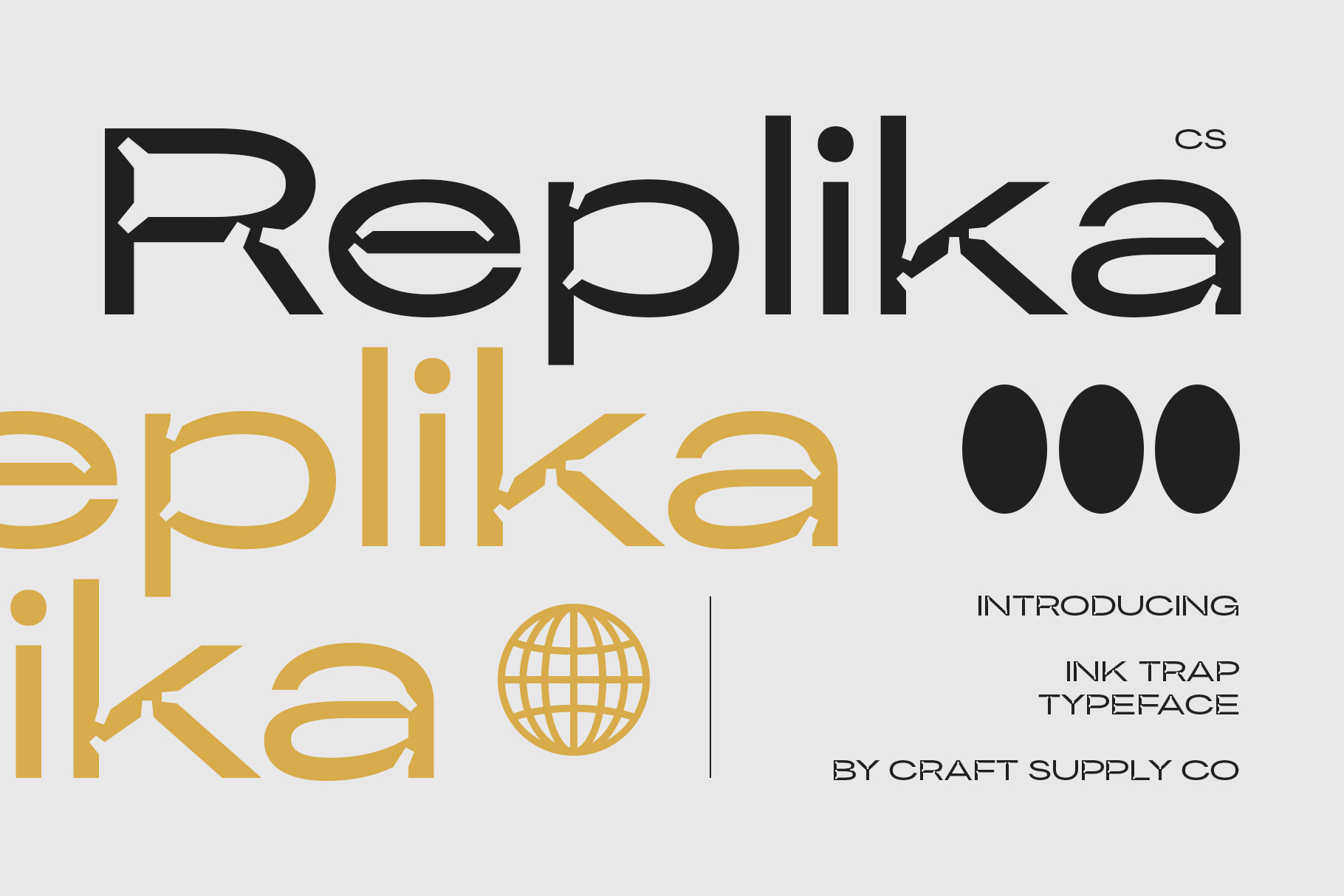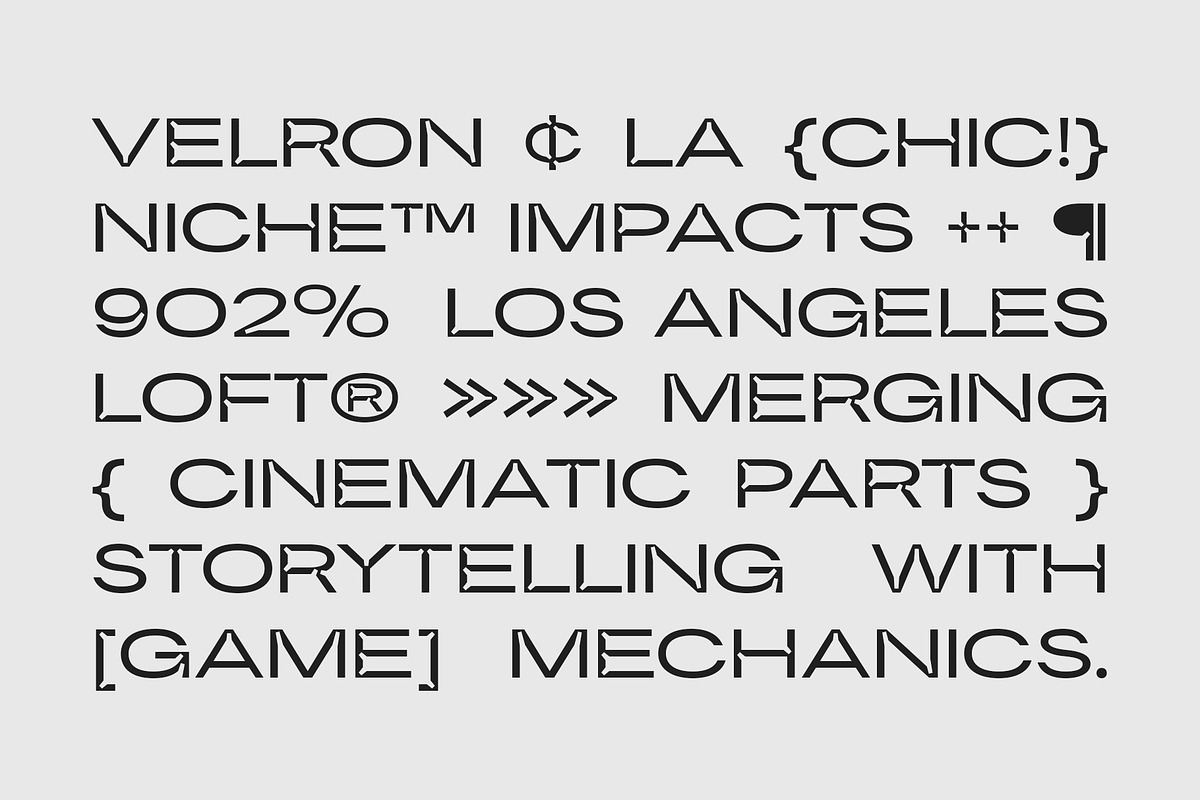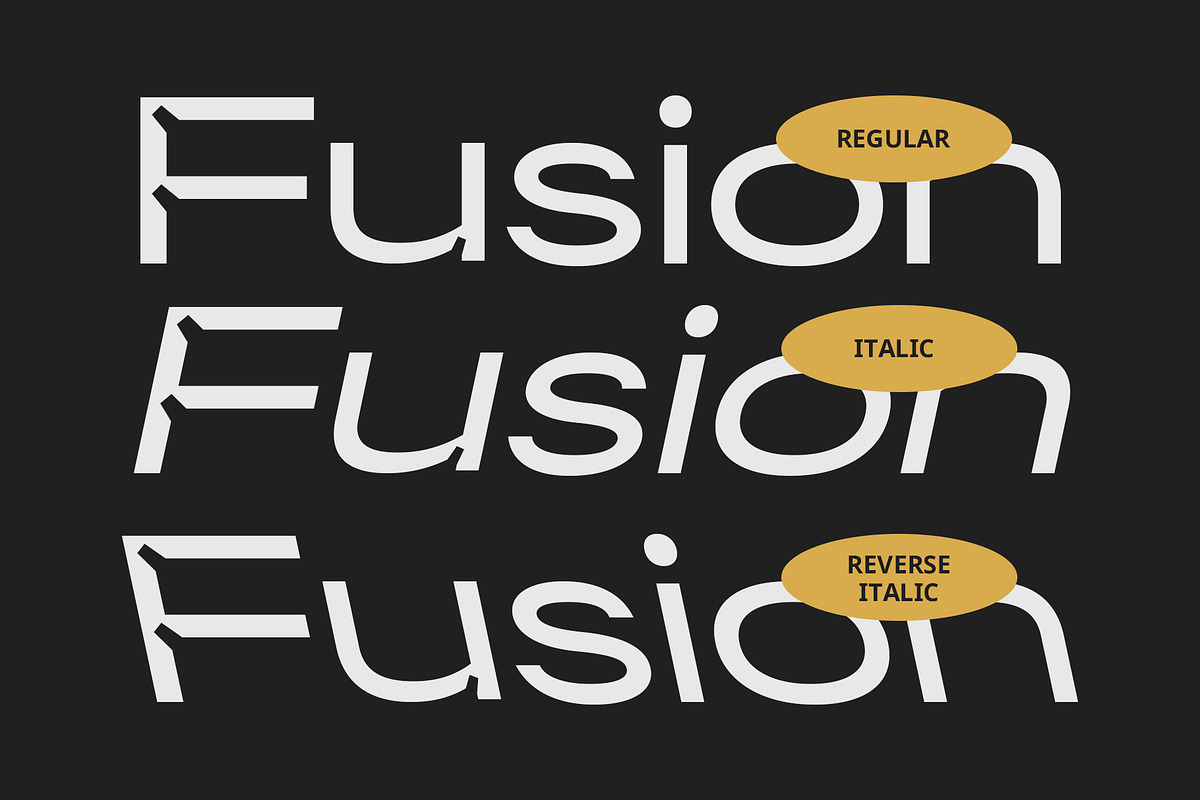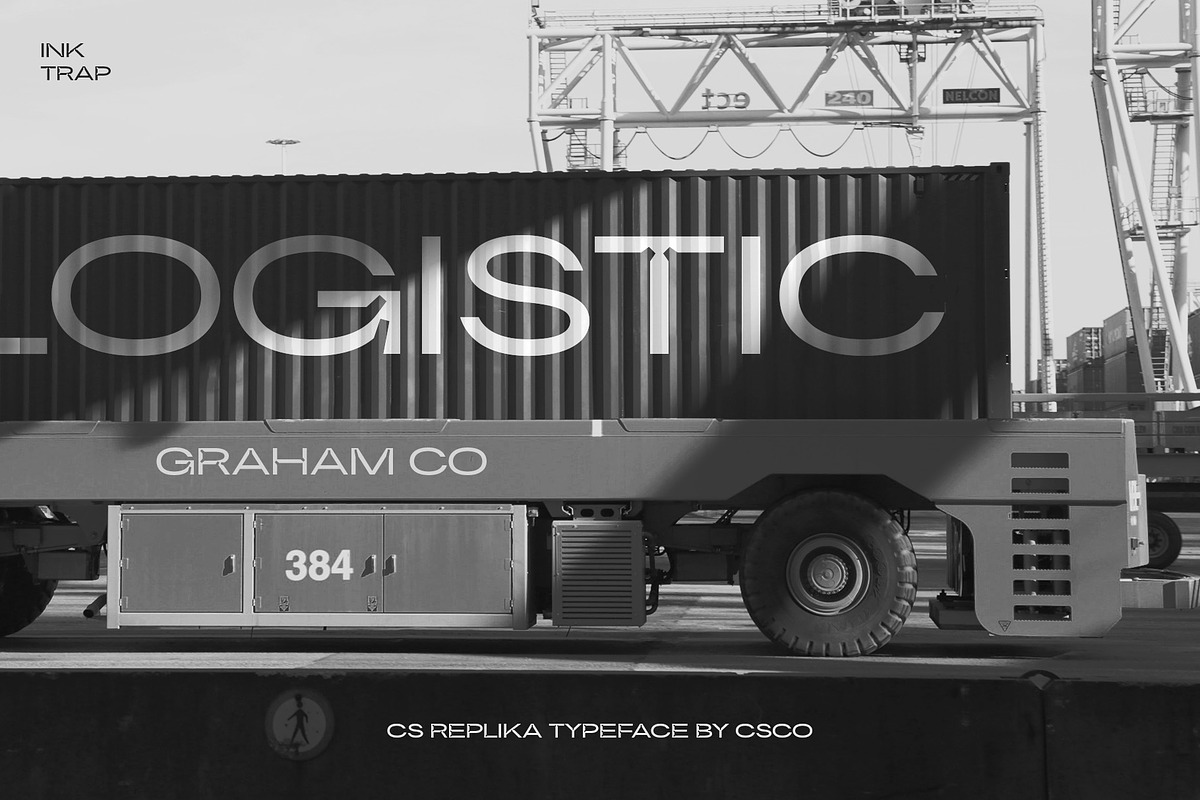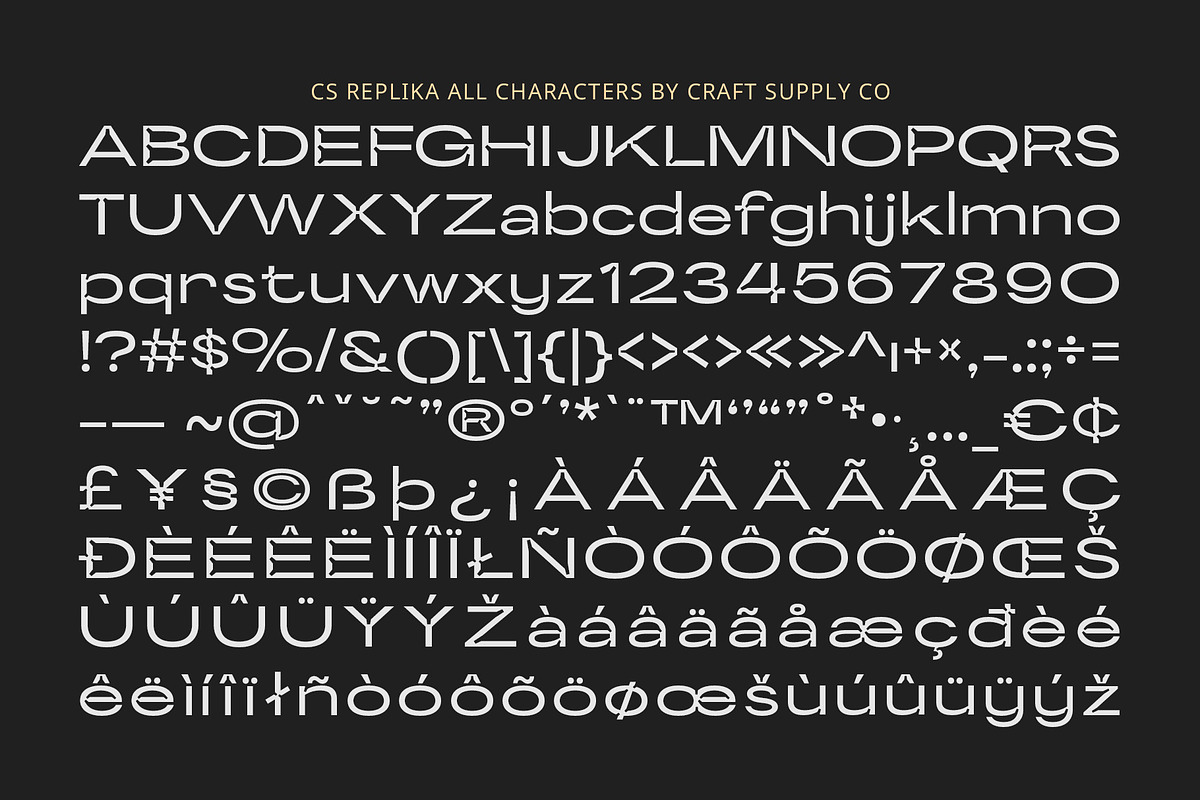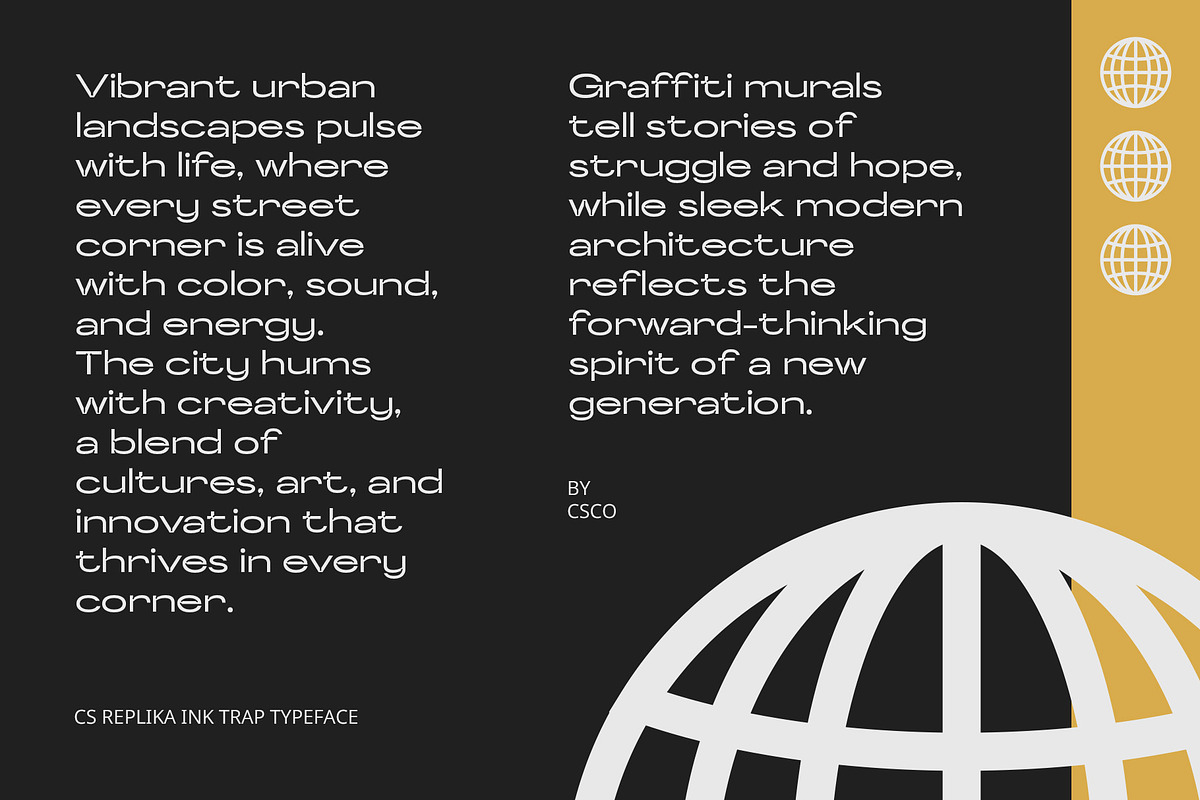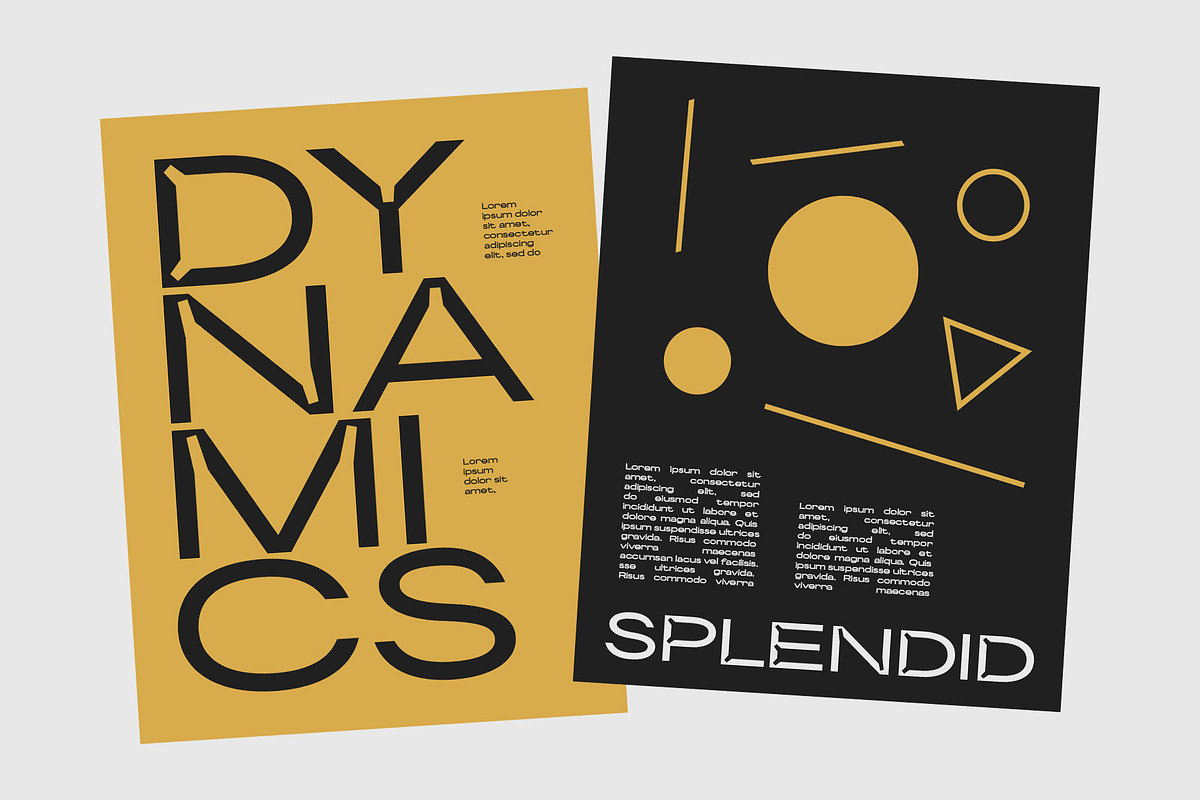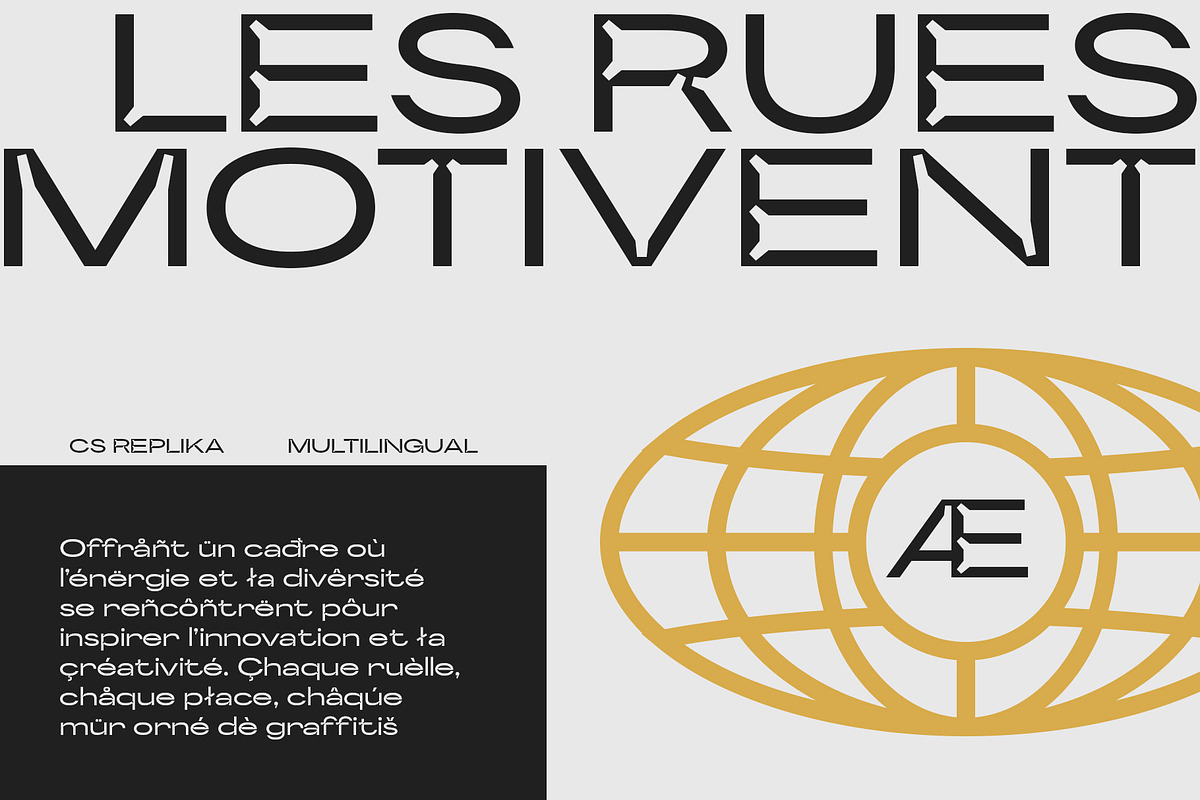
CS Replika – Inktrap Font
CS Replika – Modern Inktrap Sans Serif Font
Wide, Open Letterforms with Innovative Details CS Replika is a modern sans-serif font that features wide, spacious letterforms paired with striking inktrap details. These purposeful notches at the edges of the characters not only enhance functionality by improving clarity in small sizes but also lend a unique, innovative aesthetic. The combination of its wide structure and inktrap design creates a clean, contemporary look that is both readable and visually appealing.
Dynamic and Sleek Design for Versatile Applications The sleek geometry and open forms of CS Replika make it a versatile choice for various design needs. Its wide proportions improve legibility across digital interfaces, while the subtle inktrap details offer a dynamic touch, setting it apart from standard sans-serif fonts. This balance of form and function ensures the font performs equally well in branding, editorial layouts, web design, and more.
Perfect for Modern and Minimalist Designs CS Replika is the ideal choice for projects requiring a modern, professional, and minimalist aesthetic. Its clarity and innovative detailing make it perfect for tech branding, app interfaces, and digital products. The font also shines in print, delivering a polished and sophisticated look for promotional materials, packaging, and corporate communications.
- CS Replika Regular
- CS Replika Italic
- CS Replika Reverse Italic